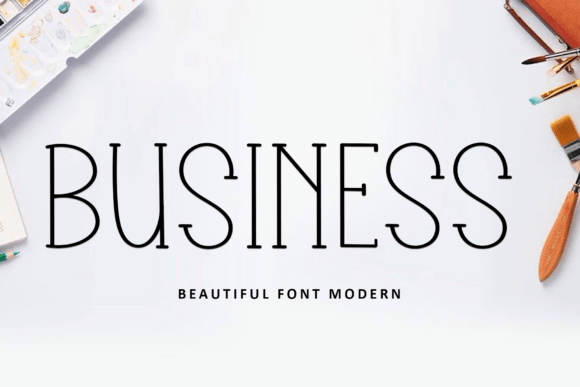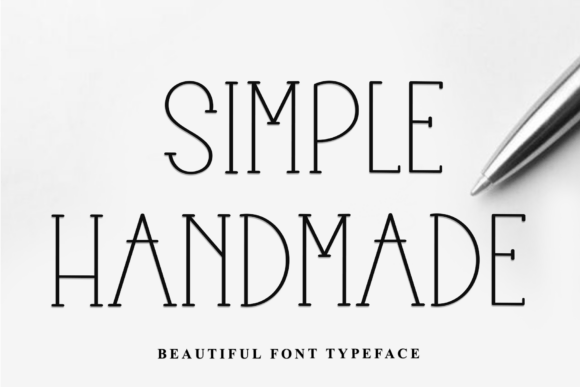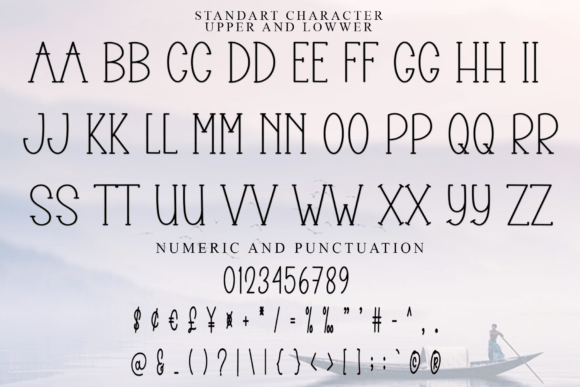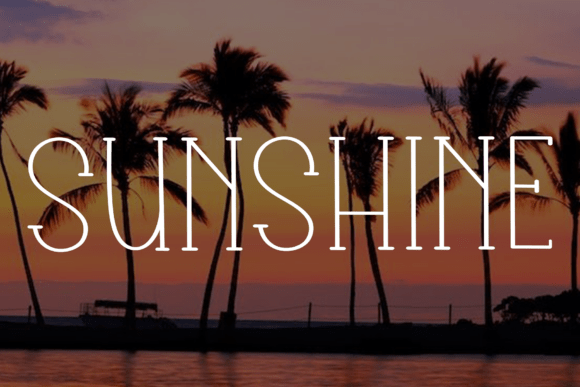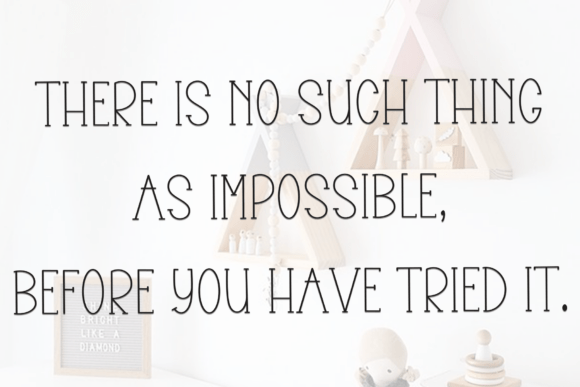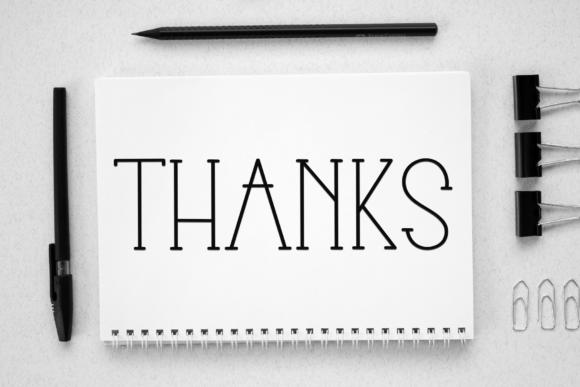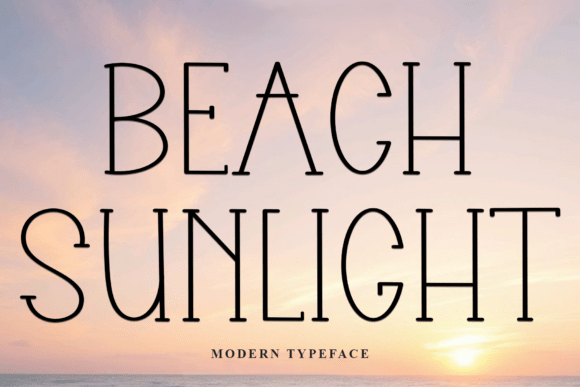
Introducing Beach Sunlight Font: Elevate Your Design with Elegance and Sophistication
Are you looking for a typeface that embodies the essence of coastal style, perfect for crafting stunning branding, wedding invitations, editorials, and minimalist design projects? Look no further than Beach Sunlight Font, a refined modern typeface that exudes elegance and sophistication. With its slender strokes and delicate slab-like serifs, this beautiful font is sure to elevate your designs to new heights.
The Characteristics of Beach Sunlight Font
Beach Sunlight Font boasts airy, elongated letterforms that evoke a sense of lightness and freedom, reminiscent of a coastal breeze on a sunny day. Its slender strokes and delicate slab-like serifs add a touch of refinement, making it perfect for designs that require a level of sophistication. The font’s classic yet modern aesthetic ensures that it will complement a wide range of design styles, from minimalist to luxurious.
Perfect for Coastal Branding
Beach Sunlight Font is an ideal choice for coastal branding, evoking the feeling of sun-kissed beaches, crystal-clear waters, and warm sandy shores. Its elegant and refined appearance makes it perfect for businesses that want to convey a sense of luxury, sophistication, and high-end quality. Whether you’re designing a logo, packaging, or website for a beachside resort, surf school, or coastal boutique, Beach Sunlight Font is sure to make a lasting impression.
Wedding Invitations and Upscale Editorials
Beach Sunlight Font is also an excellent choice for wedding invitations, adding a touch of romance and elegance to your designs. Its delicate serifs and slender strokes create a beautiful, sophisticated look that’s perfect for formal wedding stationery, save-the-date cards, and other wedding-related materials. Additionally, the font’s refined appearance makes it suitable for upscale editorials, such as fashion magazines, lifestyle publications, and high-end advertising campaigns.
Minimalist Design Projects
One of the best things about Beach Sunlight Font is its versatility. Its clean and simple design makes it an excellent choice for minimalist design projects, where subtle detail meets timeless style. Whether you’re designing a website, brochure, or social media graphics, Beach Sunlight Font will add a touch of elegance and sophistication to your designs without overpowering them.
Key Features of Beach Sunlight Font
- Refined modern typeface with slender strokes and delicate slab-like serifs
- Airy, elongated letterforms that evoke elegance and sophistication
- Perfect for coastal branding, wedding invitations, upscale editorials, and minimalist design projects
- Classic yet modern aesthetic that complements a wide range of design styles
- High-quality font suitable for both print and digital applications
Why Choose Beach Sunlight Font?
Beach Sunlight Font is an excellent choice for designers and crafters who want to add a touch of elegance and sophistication to their designs. Its unique combination of slender strokes and delicate serifs makes it stand out from other typefaces, while its versatility ensures that it can be used in a wide range of design projects. With Beach Sunlight Font, you can:
- Create stunning coastal branding that captures the essence of the beach lifestyle
- Design beautiful wedding invitations that set the tone for a romantic and elegant celebration
- Develop upscale editorials that showcase your brand’s sophistication and style
- Elevate your minimalist design projects with a touch of elegance and refinement
Beach Sunlight Font is a beautiful, refined modern typeface that’s perfect for designers and crafters who want to add a touch of elegance and sophistication to their designs. With its slender strokes, delicate serifs, and airy letterforms, this font is sure to make a lasting impression. Whether you’re working on coastal branding, wedding invitations, upscale editorials, or minimalist design projects, Beach Sunlight Font is an excellent choice. So why wait? Download Beach Sunlight Font today and start creating stunning designs that exude elegance and sophistication.